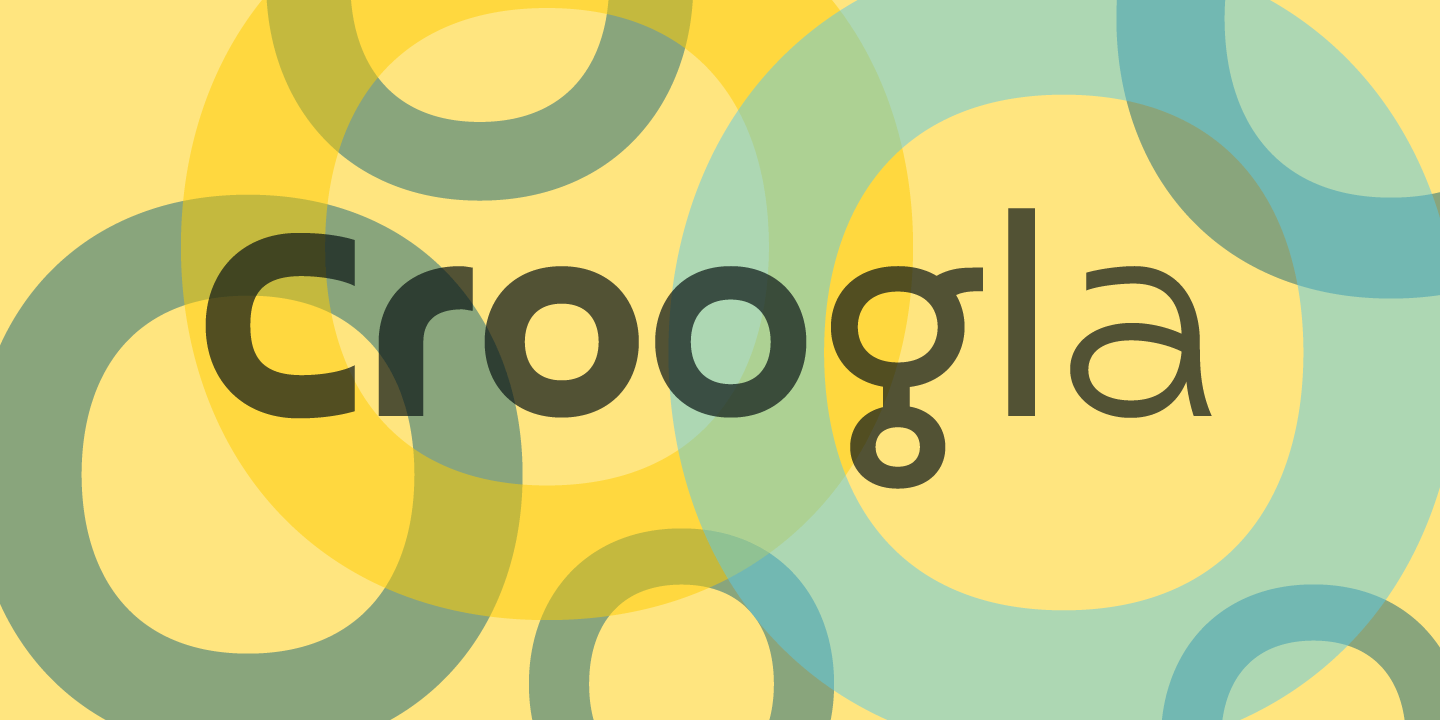
Croogla 4F Font Free Download is a bold and modern display typeface designed to capture attention with its strong, dynamic letterforms. Perfect for branding, advertising, posters, and any design that needs an energetic and contemporary look, this font brings a fresh vibe to your creative projects.
Featuring sharp angles and clean lines, Croogla 4F provides excellent legibility while making a striking visual impact. Its versatility allows designers to create eye-catching headlines, logos, and promotional materials that stand out in competitive markets.